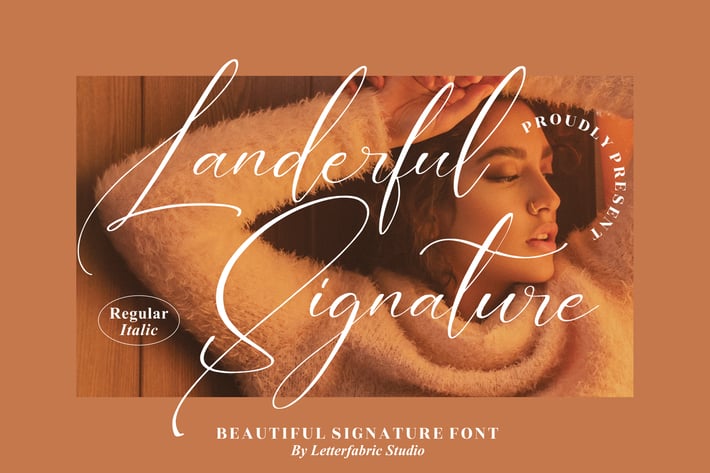
Landerful Signature Font
Landerful Signature is an elegant and refined signature-style font that captures the essence of sophistication, confidence, and timeless beauty. With its graceful curves and flowing strokes, this typeface blends modern minimalism with classic calligraphic charm — perfect for luxury branding, fashion projects, and high-end visual storytelling.
Elegant signature script with stylish ligatures and swashes
Comes in Regular and Italic styles for creative flexibility
Multilingual support for global use
Balanced contrast between delicate strokes and legible forms
Personal branding and signature logos
Fashion, photography, and editorial projects
Wedding invitations and elegant stationery
Product packaging and beauty branding
Social media content and promotional materials
Timeless, chic, and effortlessly graceful — Landerful Signature adds a touch of refined beauty to every creation.